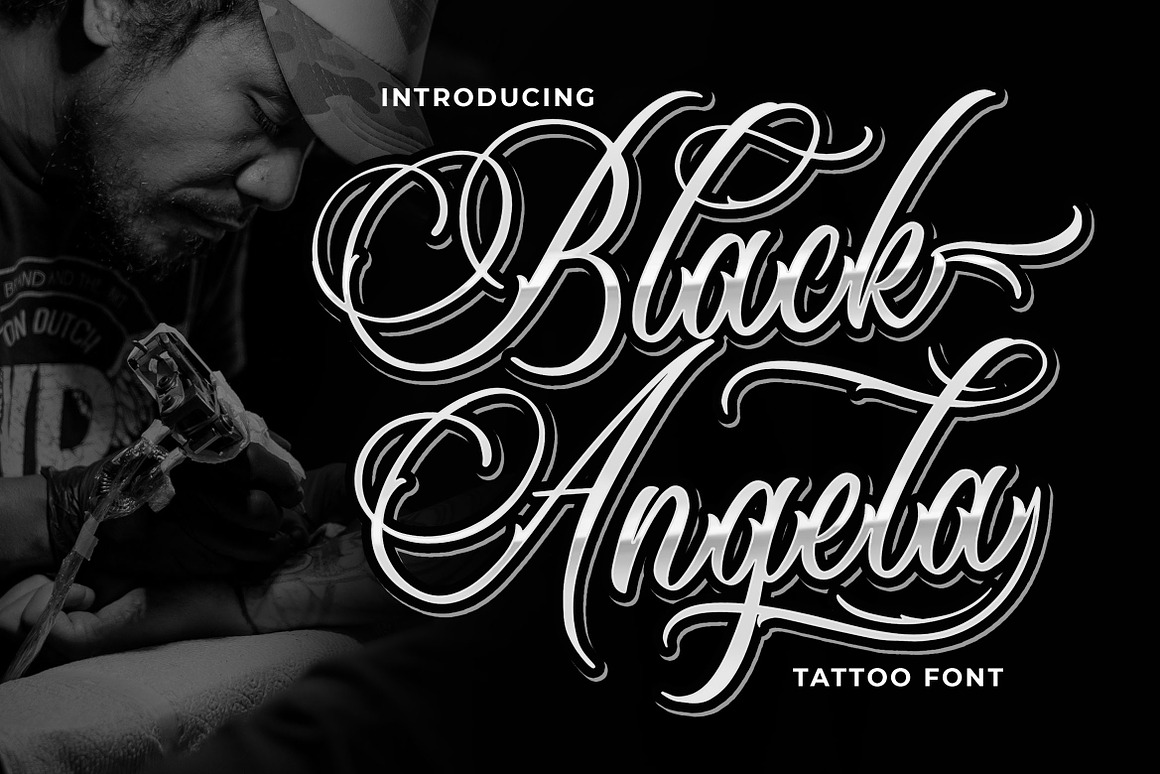
Black Angela Font
Black Angela Font is perfect for gothic fashion branding, dark romance novel covers, alternative beauty products, mysterious event invitations, occult bookstore signage, and dramatic theater productions. This captivating typeface works exceptionally well in vampire-themed entertainment, dark art exhibitions, and sophisticated gothic lifestyle brand communications.
What makes Black Angela Font so exciting is its seductive gothic elegance that combines feminine grace with dark mystique. The font features flowing script elements with dramatic flourishes and ornate letterforms that create an enchanting balance between beauty and darkness. Its mysterious aesthetic demonstrates exceptional sophistication and allure, making it ideal for brands seeking to convey elegance, mystery, and romantic rebellion.
Black Angela Font comes in multiple style variations including Regular, Bold, Ornate, and Shadow versions. The font family also includes decorative swashes, gothic ornaments, and mystical symbols that enhance the dark romantic quality and provide extensive creative possibilities for atmospheric design applications.
The font's graceful construction ensures excellent readability while maintaining its gothic mystique across various romantic and alternative applications. Professional designers appreciate its comprehensive character support and specialized ornamental features that work effectively in both digital and print gothic design contexts.
Black Angela Font has established itself as the preferred choice among creative professionals working with gothic and alternative romance brands. Its ability to convey dark elegance and mysterious femininity makes it an invaluable asset for organizations seeking to establish authentic connections with audiences who appreciate sophisticated gothic aesthetics.